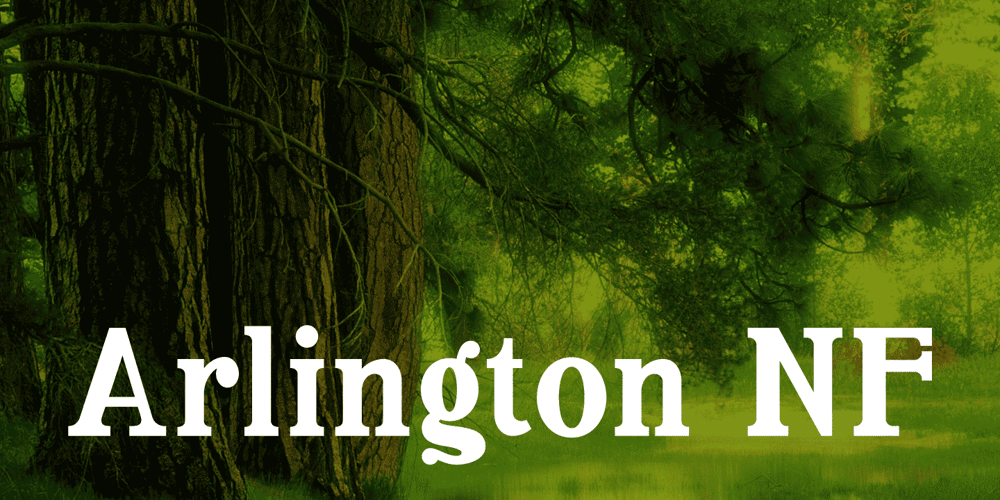
Arlington NF Font Family was designed by Nick Curtis and published by Nick’s Fonts. Arlington NF contains 1 styles and family package options. Here’s a charming little face from the 1896 American Type Founders specimen book. Its naïvete will add warmth to any project it graces. Both versions support the Latin 1252, Central European 1250, Turkish 1254 and Baltic 1257 codepages.